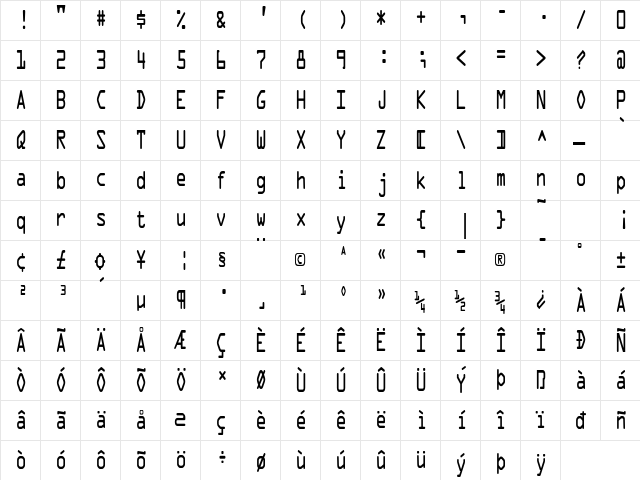
MicroscanACondensed Regular
Design Context for MicroscanACondensed Typeface
MicroscanACondensed offers clean, dependable letterforms without strong stylistic allegiance, making it a practical choice for designers who need flexibility. Its narrow stance lets it pack a punch even in space-constrained designs.